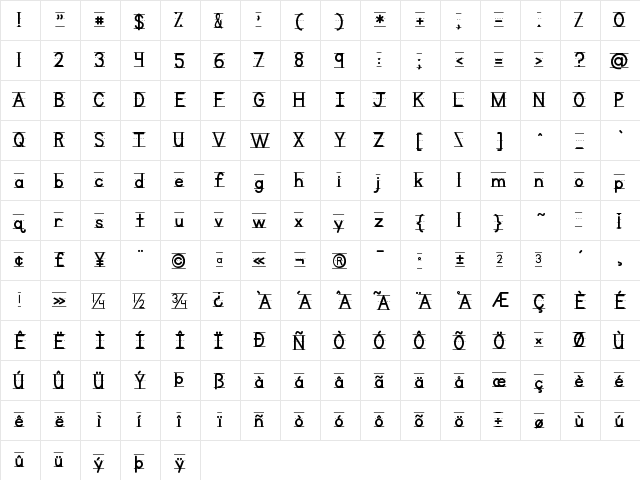
KG Primary Penmanship Lined Regular
| Foundry | Kimberly Geswein |
| Designer | Kimberly Geswein |
Design Context for KG Primary Penmanship Lined Typeface
KG Primary Penmanship Lined offers clean, dependable letterforms without strong stylistic allegiance, making it a practical choice for designers who need flexibility.